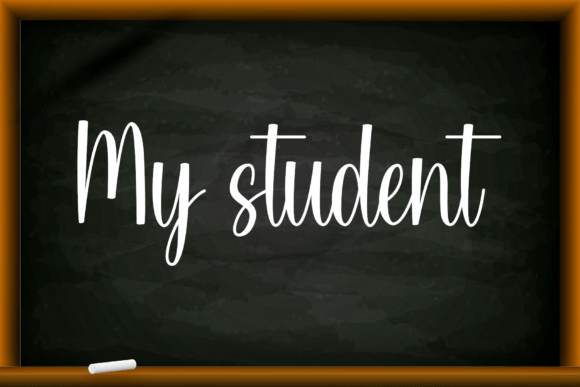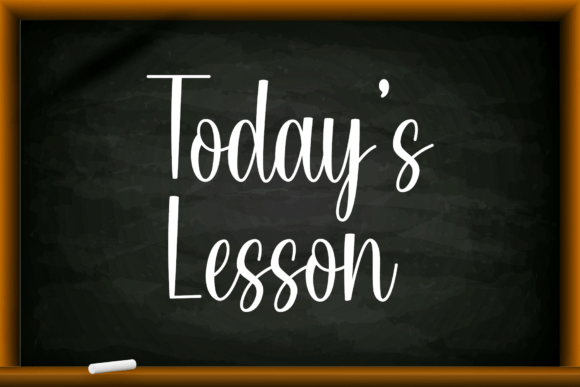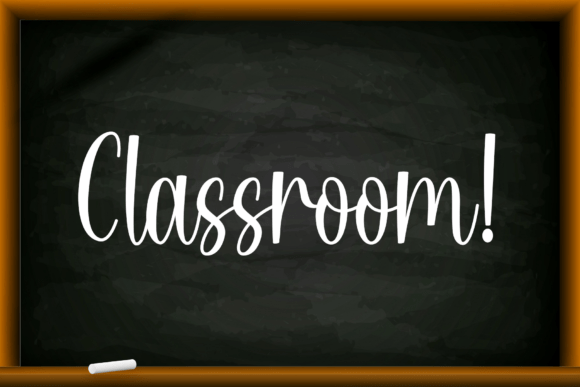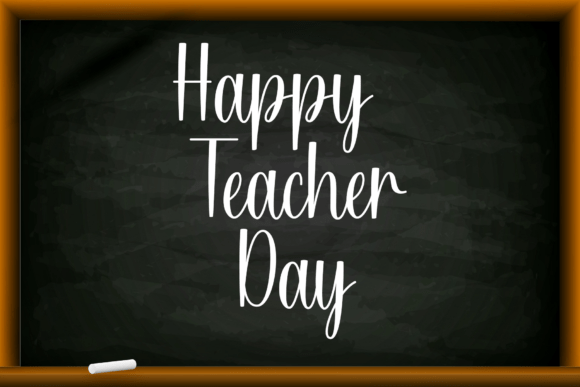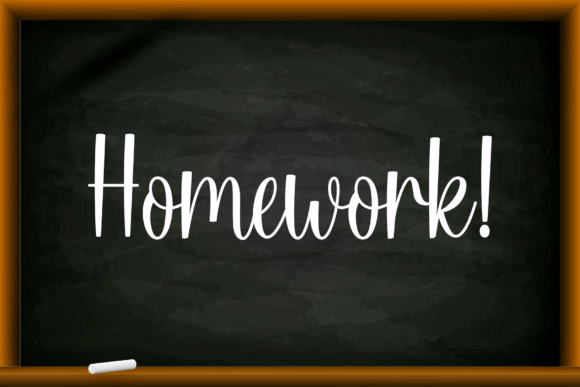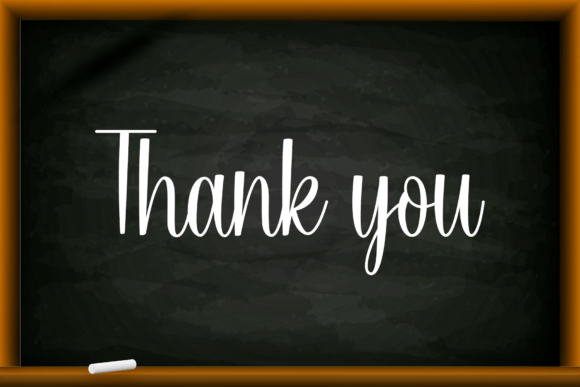
Inject a Touch of Nostalgia into Your Designs with “Back to School” Font
Are you looking for a way to add a dash of nostalgia to your designs? Do you want to evoke the charm of school days and the timeless allure of chalk-filled blackboards? Look no further than the “Back to School” font, a handwritten typography that seamlessly captures the essence of learning and creativity. In this article, we’ll explore the unique features of this font and how it can elevate your designs to new heights.
The Charm of “Back to School” Font
The “Back to School” font is a masterpiece of typographic design, carefully crafted to transport you back to the vibrant classrooms of your childhood. With its handwritten style, this font exudes a sense of personalized craftsmanship, making each project feel unique and special. The font’s design is reminiscent of chalkboard scribbles, with a subtle texture that evokes the feeling of writing on a blackboard.
Seamless Creativity and Tradition
What sets “Back to School” apart from other fonts is its ability to meld creativity and tradition. This font is perfect for designers and crafters who want to add a touch of whimsy to their work without sacrificing professionalism. Whether you’re designing a poster, a flyer, or a social media graphic, “Back to School” font is the perfect choice. Its versatility ensures that it can be used in a wide range of projects, from educational materials to marketing campaigns.
Echoes of Laughter and Learning
The “Back to School” font is more than just a typography – it’s an experience. It’s a way to tap into the nostalgia of school days, when laughter and learning filled the air. With this font, you can create designs that evoke the feeling of being in a classroom, surrounded by friends and the thrill of discovery. Whether you’re a designer, a teacher, or a parent, this font is sure to bring a smile to your face and inspire your creativity.
“Back to School” font is a dream come true for designers and crafters. Its unique style and versatility make it perfect for a wide range of projects, from digital designs to handmade crafts. Here are just a few ways you can use “Back to School” font in your work:
- Create eye-catching posters and flyers for educational events or marketing campaigns
- Design personalized stationery, such as notebooks, journals, and greeting cards
- Make custom signs and banners for schools, libraries, and educational institutions
- Add a touch of nostalgia to your social media graphics and blog posts
Tips for Using “Back to School” Font
To get the most out of “Back to School” font, here are a few tips to keep in mind:
- Use it in combination with other fonts to create a unique and visually appealing design
- Don’t be afraid to get creative and try out new and unusual design ideas
- Use it to add a personal touch to your designs, making them feel more handmade and special
In conclusion, the “Back to School” font is a unique and versatile typography that is sure to inject a touch of nostalgia into your designs. With its handwritten style, subtle texture, and timeless allure, this font is perfect for designers and crafters who want to add a dash of whimsy to their work. Whether you’re designing educational materials, marketing campaigns, or handmade crafts, “Back to School” font is the perfect choice. So why not give it a try and see how it can elevate your designs to new heights?